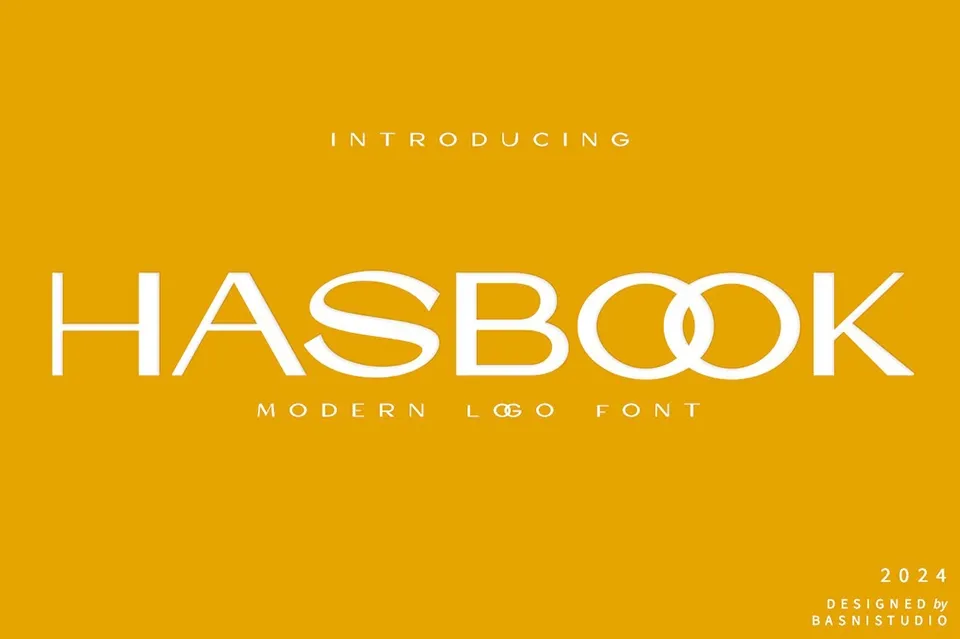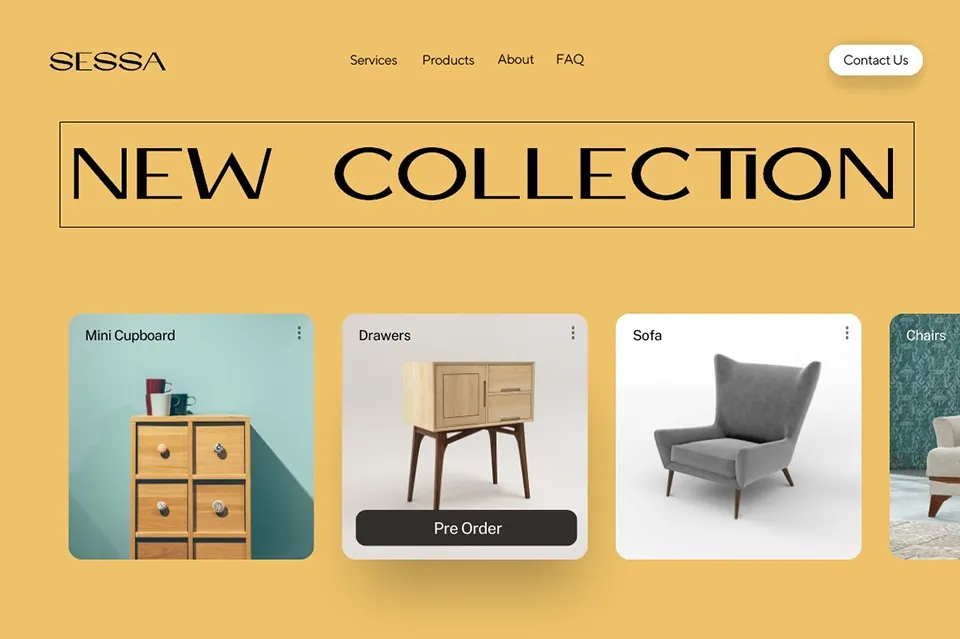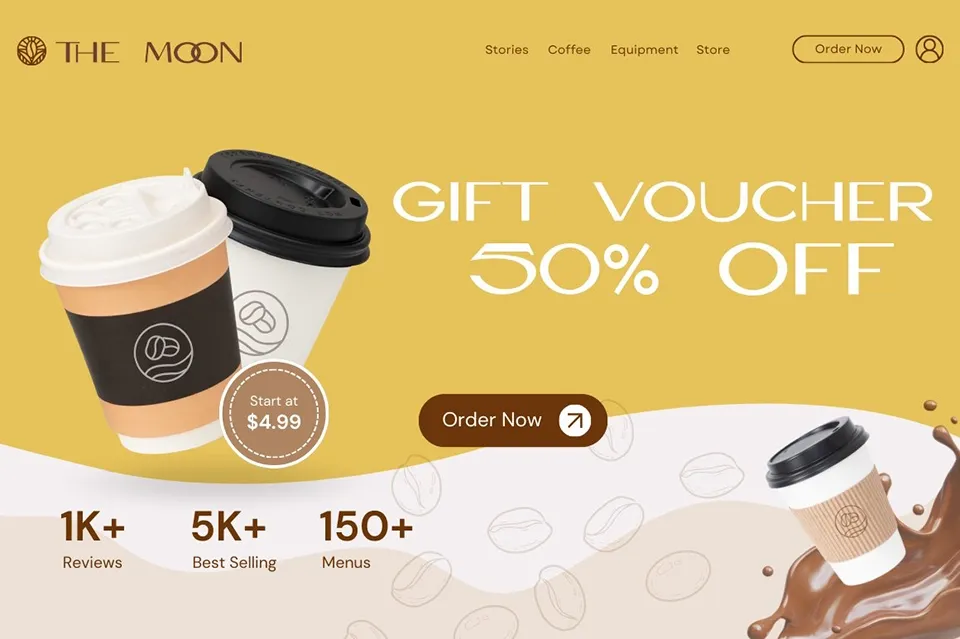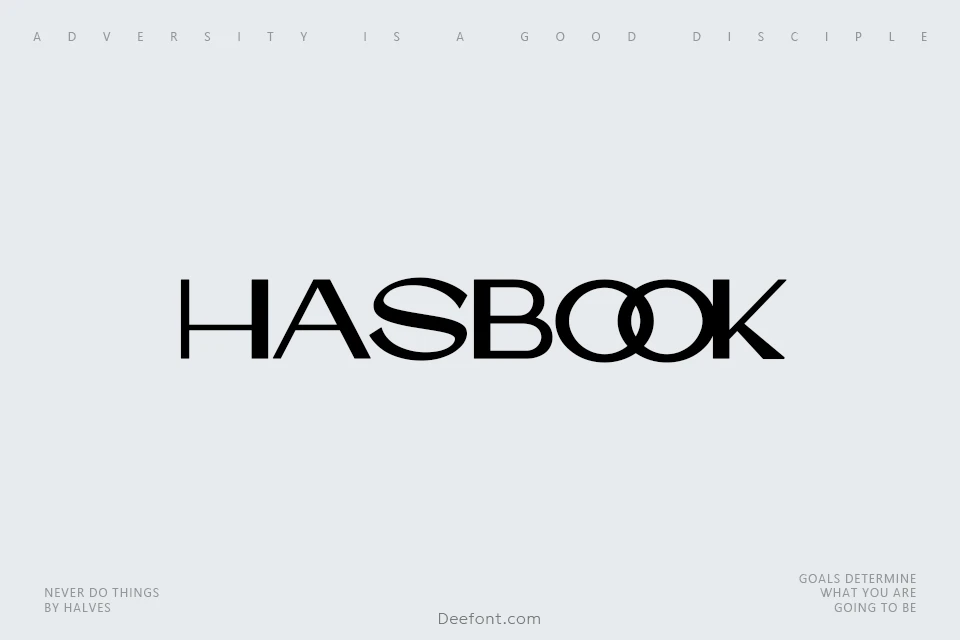
Hasbook Font
Hasbook Font is a modern logo font designed by Basnistudio in 2024. This typeface features a clean, elegant sans-serif style, characterized by its sharp lines and sophisticated simplicity. A standout feature is the unique linked design of the double ‘O’s, adding a distinctive touch. Hasbook is crafted specifically for impactful branding and logo design, offering a contemporary aesthetic that is both refined and memorable. Its minimalist yet striking appearance makes it ideal for businesses seeking a modern and polished visual identity.